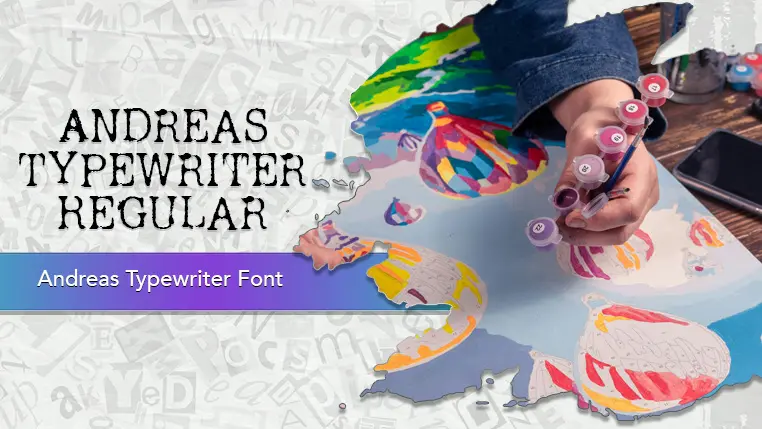
The Andreas Typewriter font family may be ideal for you if you enjoy working on an artistic design project. The lively, expressive look of this typeface, which was created by Andreas Johansson, makes it ideal for Creative projects. This font can be a unique choice for branding a company or product that aims to highlight craftsmanship, individuality, or a retro aesthetic. Due to their distinct style and sometimes rough texture, typewriter fonts are great for grabbing attention in titles, headlines, or quotes. They are generally not recommended for long body text, as they can be difficult to read. and other light-hearted visual projects.
Regular are the one primary font styles of the Andreas Typewriter font family. You may build dynamic, visually appealing text layouts with the distinct flair that each style offers. With crisp, readable lines and a relaxed tone.